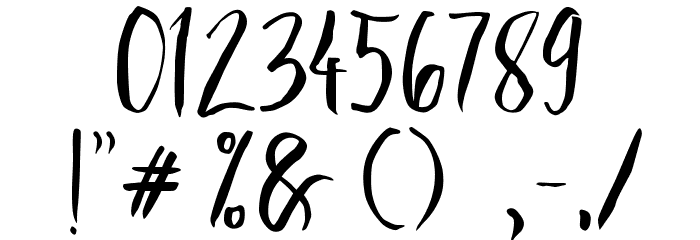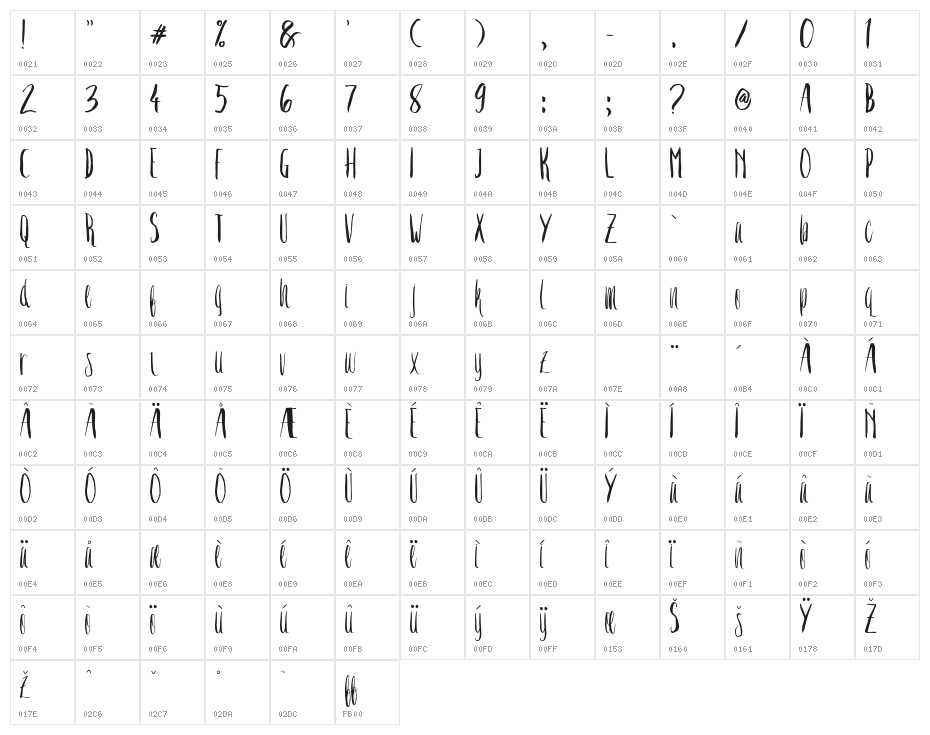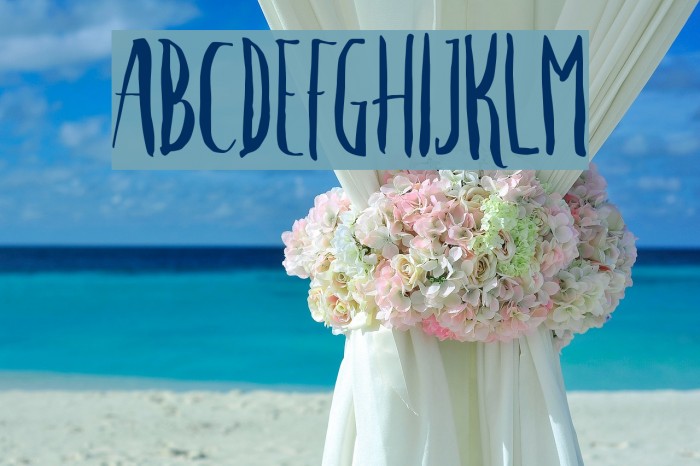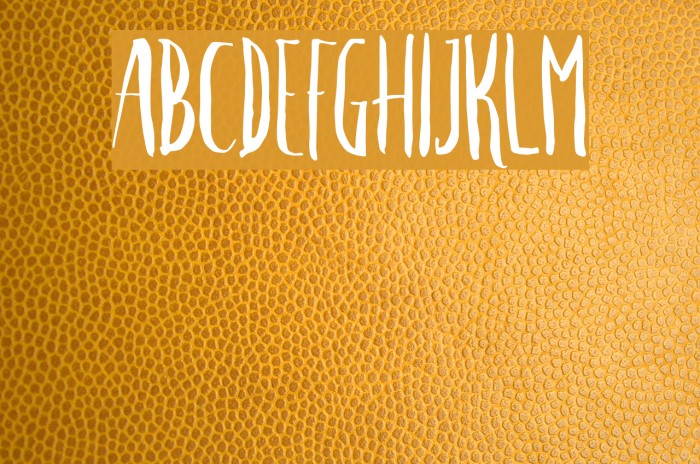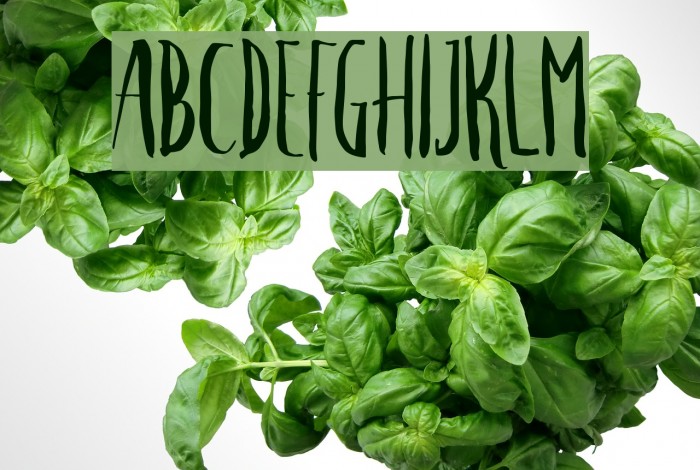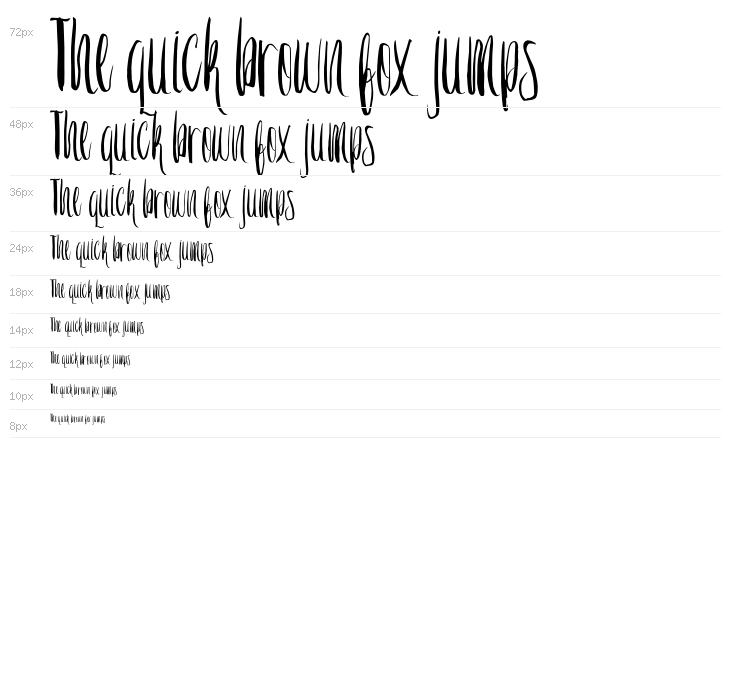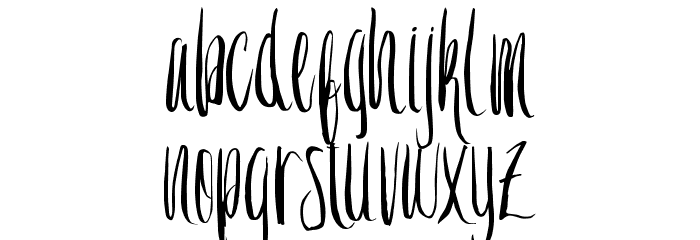
CrashOne Font
CrashOne Description
This font features a dynamic and expressive handwritten style, characterized by its fluid and irregular strokes. The letters have a playful and artistic appearance, with varying heights and widths that give it a lively and spontaneous feel. The uppercase letters are bold and prominent, while the lowercase letters maintain a consistent flow. Numbers and special characters are crafted with the same artistic flair, ensuring a cohesive look across all elements. The font's unique style makes it stand out, perfect for projects that require a personal and creative touch.
| Use Case | Logos, Headlines, Artistic designs |
| Proposed Projects | Ideal for creative projects such as greeting cards, posters, invitations, and artistic branding. |